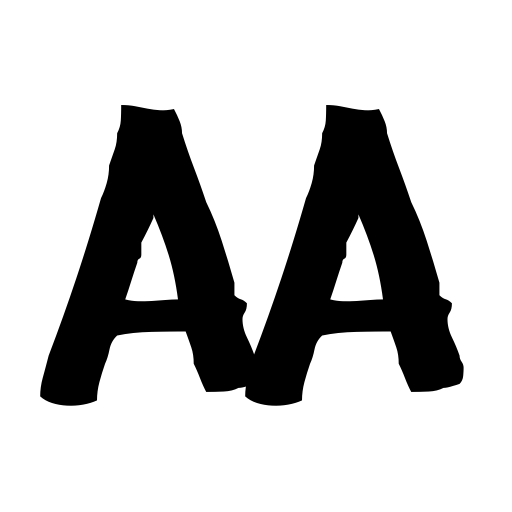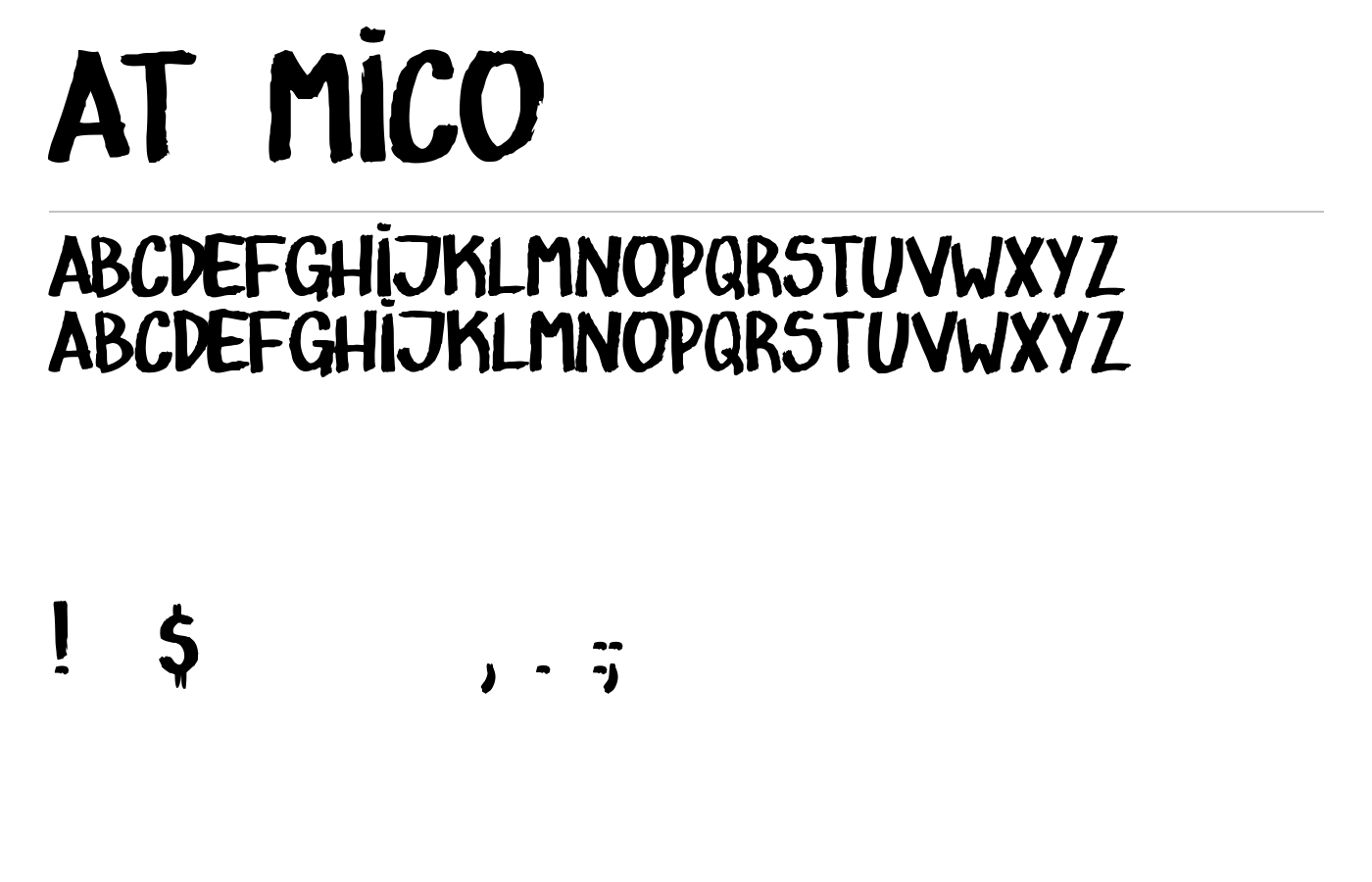
ATÔMICO is a bold, hand-drawn sans serif font with a playful and slightly rough texture that gives it a handcrafted, casual feel. Its irregular, chunky letterforms and tight spacing make it ideal for informal or creative projects looking to convey energy and personality. This font works well for posters, branding, and packaging where a distinctive, fun, and approachable style is desired.
ATÔMICO Font
About ATÔMICO Font